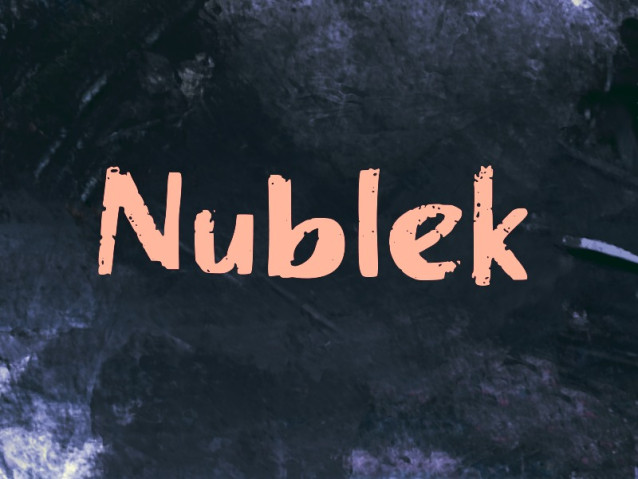
Nublek Font
Nublek Font is a simple and modern display font suitable for quotes, logos, headings, titles, and many more. Use it on any of your creative projects, and your designs will become outstanding!